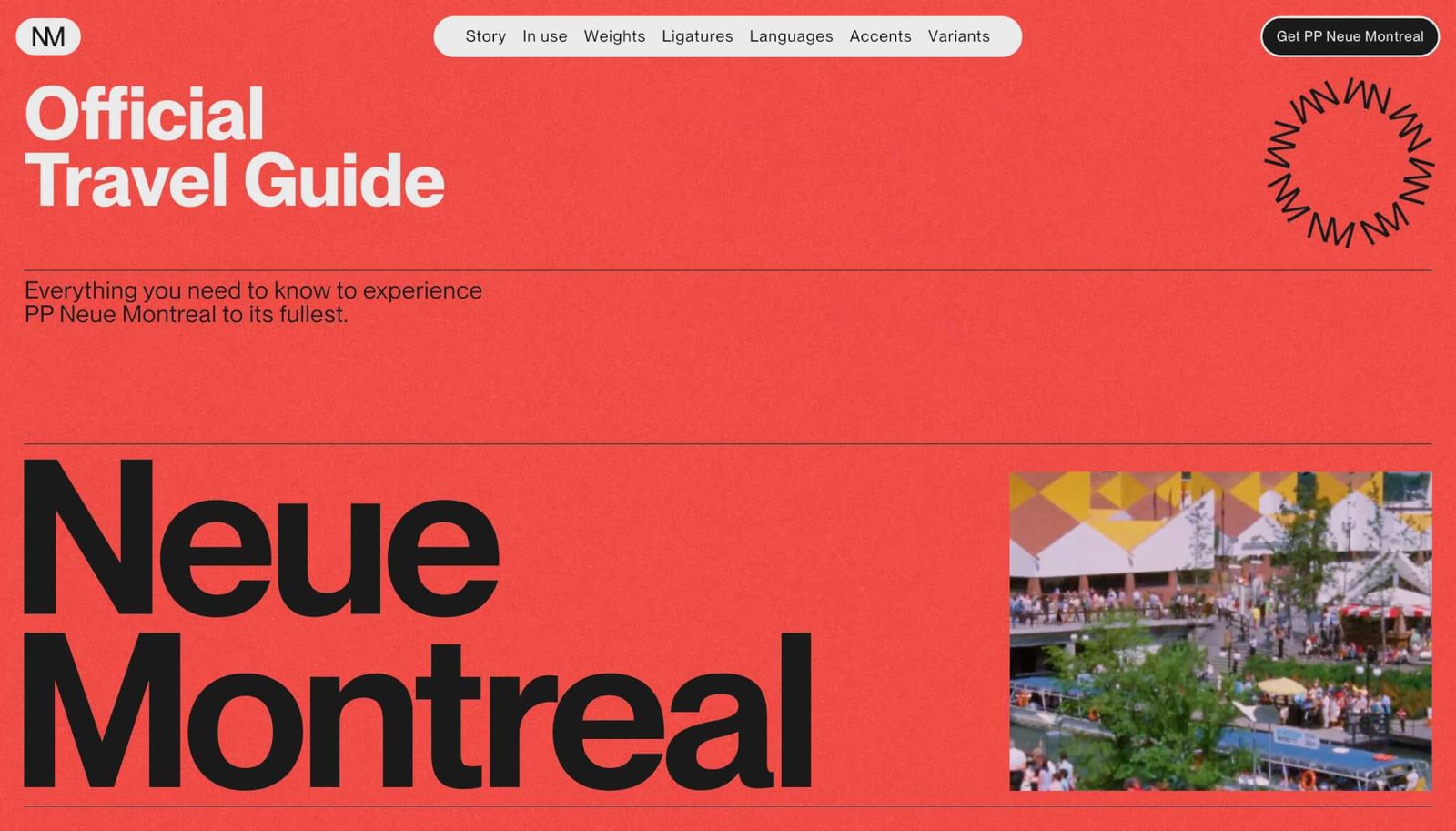
PP Neue Montreal – Grotesque Font by Pangram Pangram
Discover PP Neue Montreal, the timeless grotesque sans serif by Pangram Pangram. Built for branding, UI & editorial design with multiple weights.